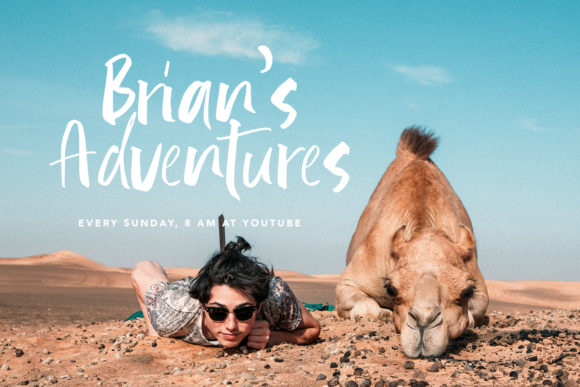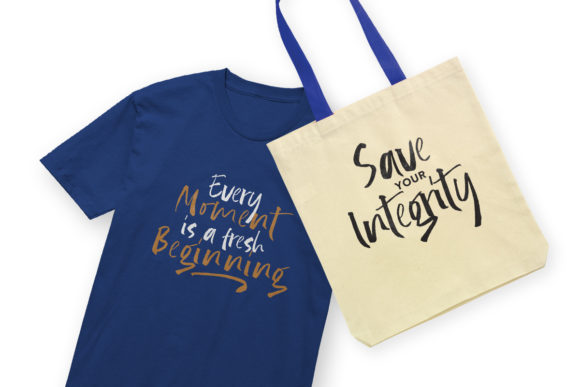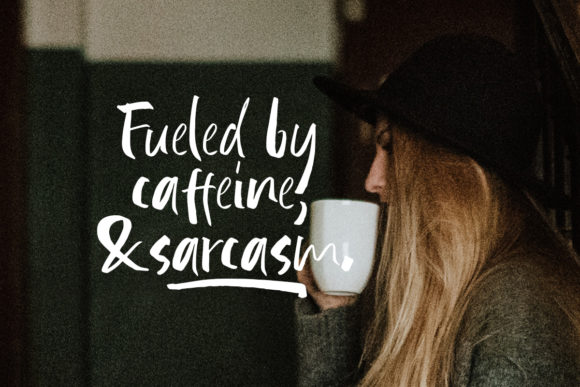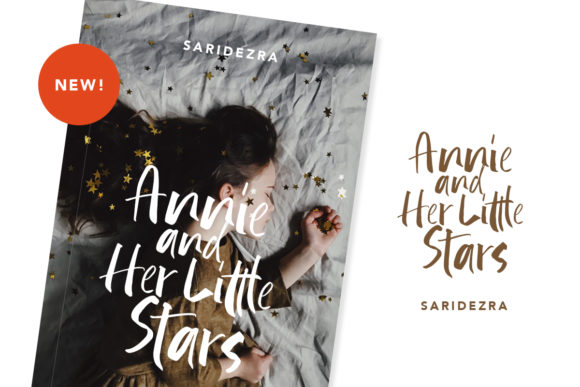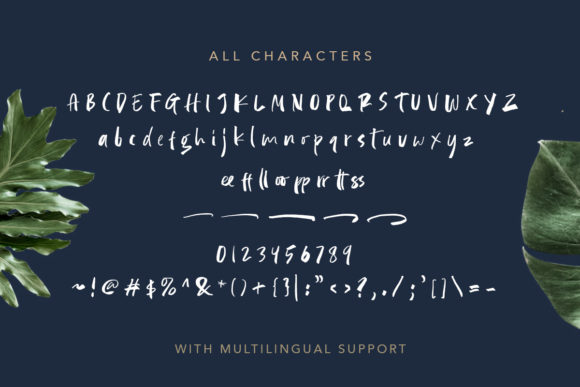
Unlocking the Beauty of Imperfection
Have you ever been stuck in a creative rut, unable to bring your vision to life? You’re not alone. As a designer, I’ve been there too – staring at a blank page, unsure of how to translate my ideas into something tangible. But then, something magical happens. You stumble upon a font that speaks to you, a font that whispers ‘yes, this is it.’ For me, that font was Beautiful Weakness, a stunning handwritten font that has become my go-to companion in the creative process.
Beautiful Weakness is more than just a font – it’s an experience. Its unique, imperfect strokes evoke a sense of humanity, making even the most mundane designs feel alive. By incorporating Beautiful Weakness into your work, you’ll add a touch of authenticity and character that’s hard to find in more traditional fonts.
Whether you’re a seasoned designer or just starting out, Beautiful Weakness Font is an invaluable tool in your creative arsenal. Its beauty lies not in its perfection, but in its imperfections – a reminder that sometimes, it’s the flaws that make something truly special.
Beautiful Weakness Font Key Features
- Unique Characteristics: The font features a unique blend of elegant and distressed elements, creating a visually appealing and eye-catching effect.
- Style Variations: The font includes multiple style variations, including Regular, Bold, Italic, and Bold Italic, to provide designers with a range of options for their designs.
- Legibility: The Beautiful Weakness font is designed for optimal legibility, making it suitable for both body text and headlines in various design applications.
Beautiful Weakness Font Review
I’ve had the chance to work with the Beautiful Weakness Font, and I must say it’s a unique addition to any design project. ✨ One of the things that stands out to me is its distressed texture, which adds a sense of character to any text. It’s perfect for designs that need a bit of edge, like music festivals or urban wear campaigns.
Another advantage of this font is its versatility. ✨ It can be used for both headings and body text, and it works well in both digital and print formats. It’s also relatively easy to read, which is a must for any font.
- ⚠️ The font can be quite busy, which may make it difficult to use for long blocks of text. It’s best to use it sparingly, like in headings or titles.
- ⚠️ The distressed texture can sometimes make the text difficult to read, especially for those with vision impairments.
- ⚠️ The font may not be suitable for formal or professional designs, as it has a more casual, relaxed feel.
Overall, I think the Beautiful Weakness Font is a great choice for designers looking to add some personality to their projects. While it has some limitations, its unique texture and versatility make it a valuable addition to any design toolkit.
Beautiful Weakness Font: A Practical Application Guide
The Beautiful Weakness Font is perfect for:
- Personalized gifts and merchandise
- Brand identity and marketing materials
Remember to use the Beautiful Weakness Font in a way that complements your design and message.